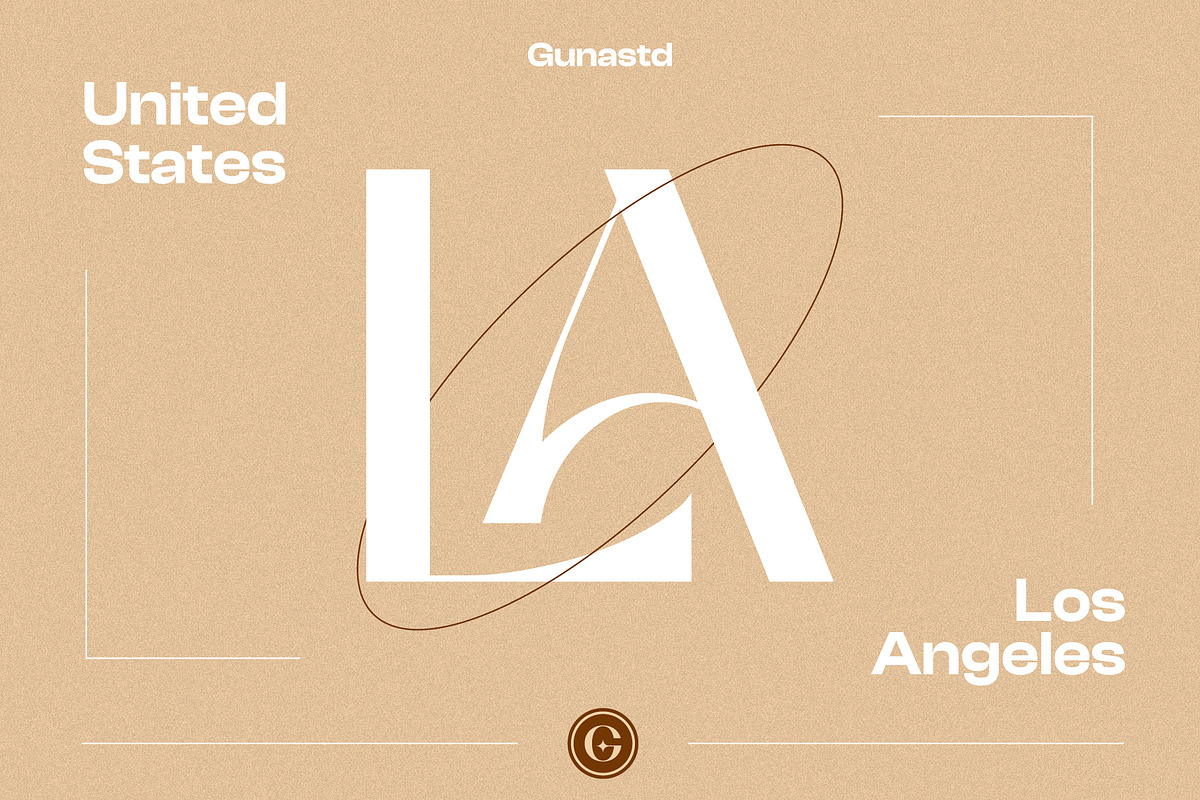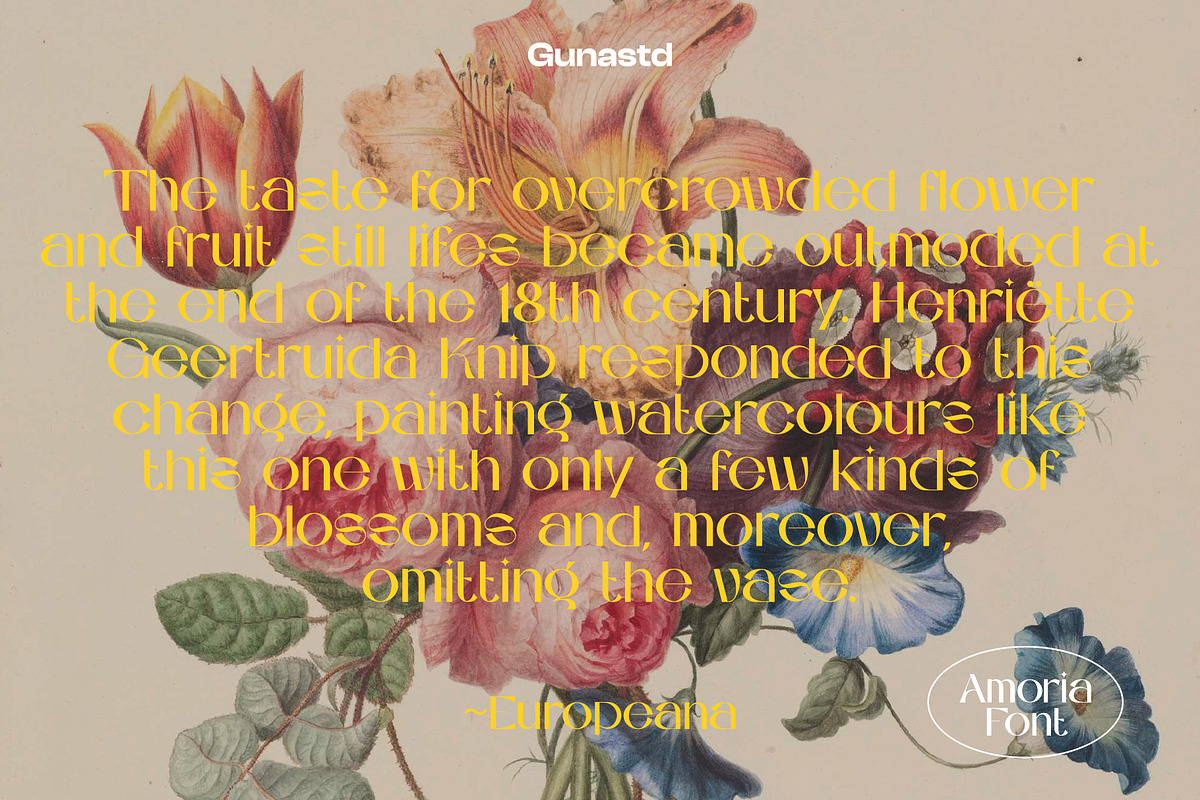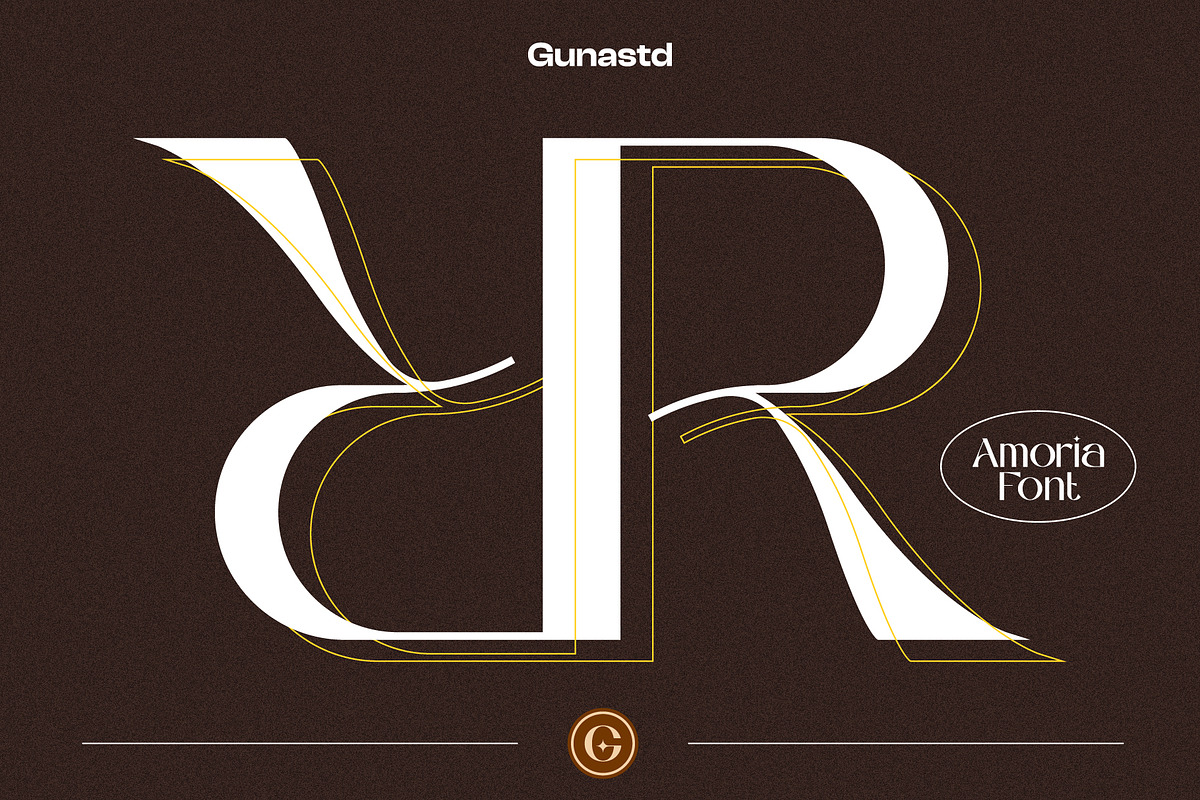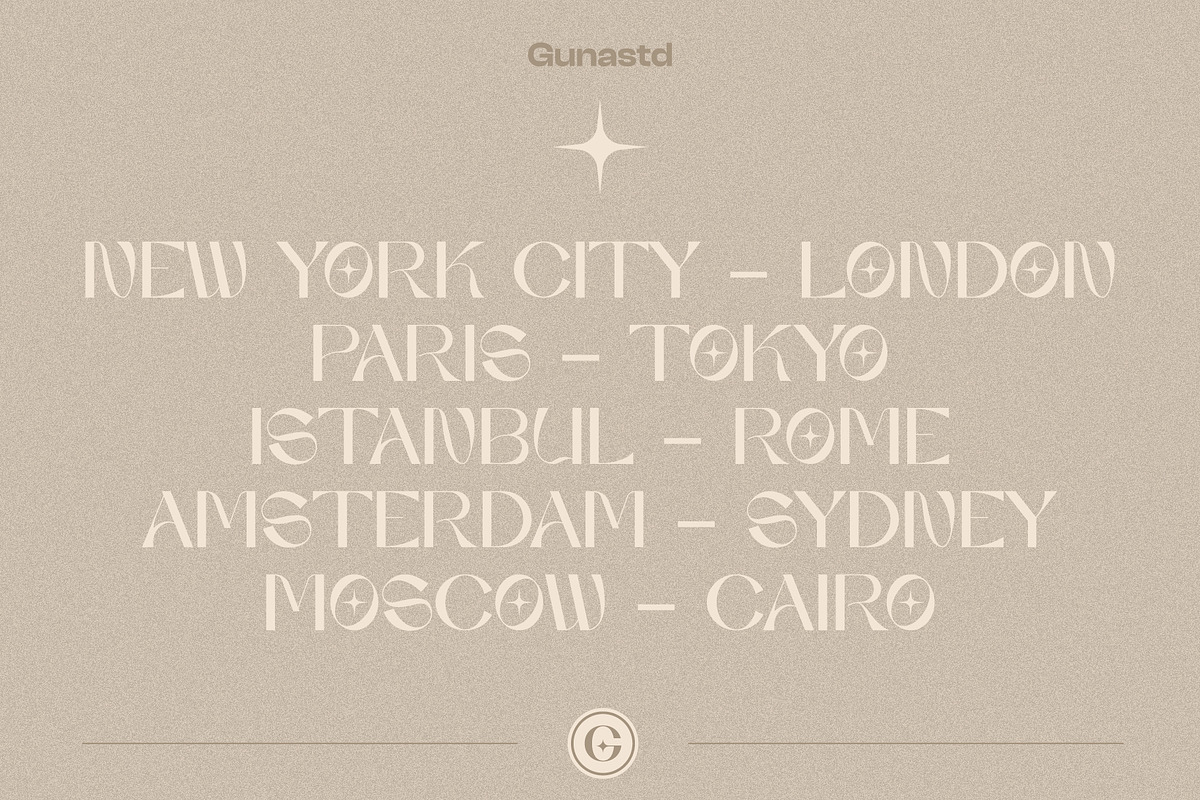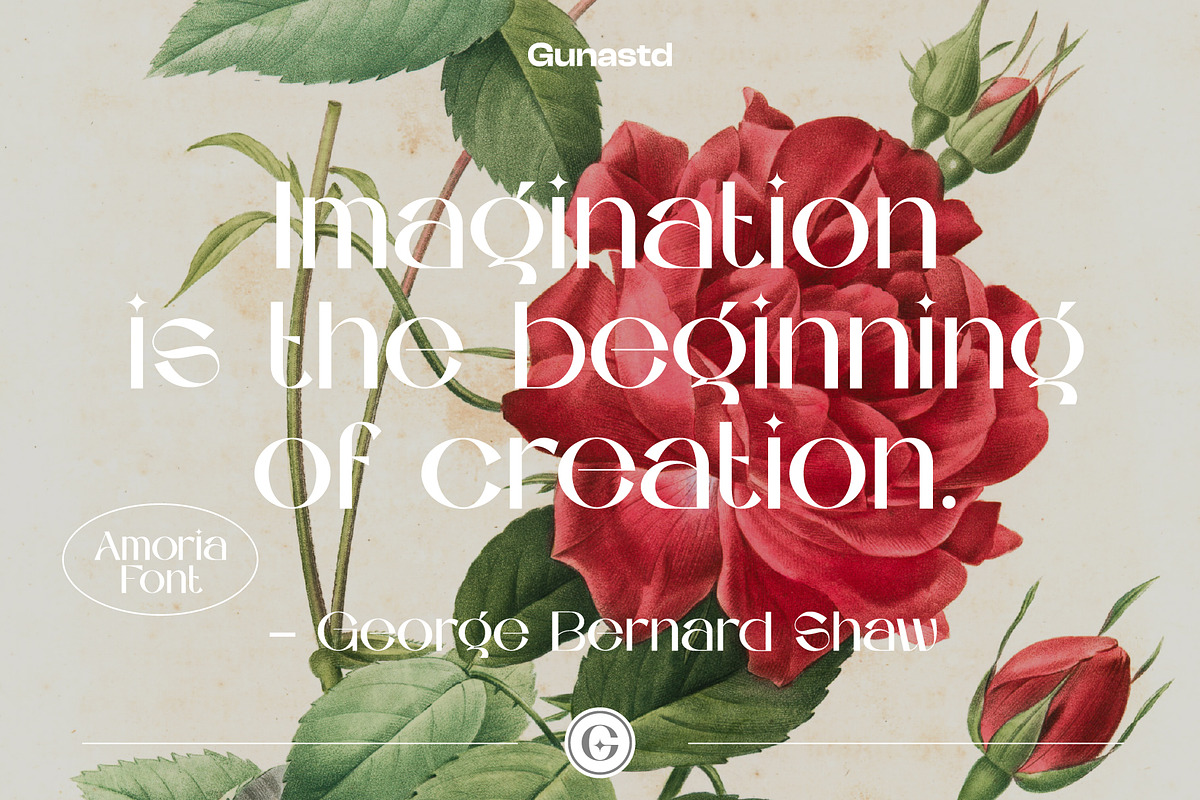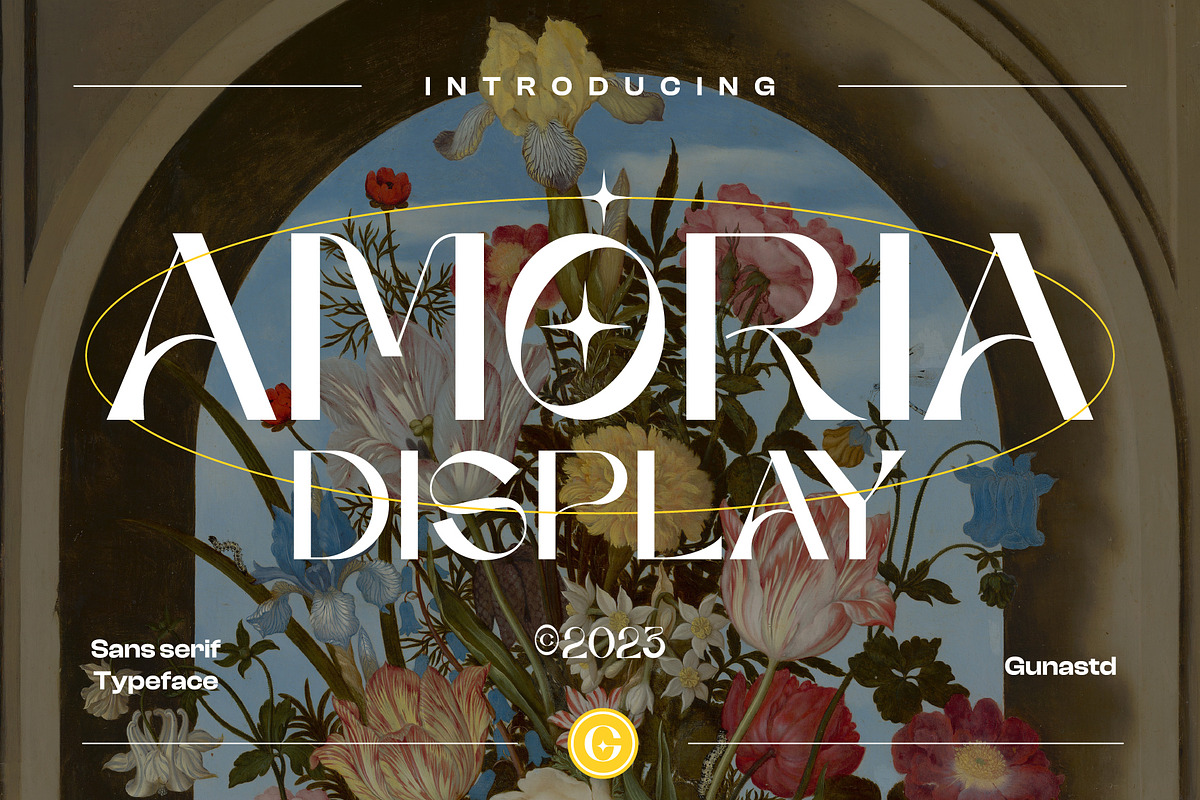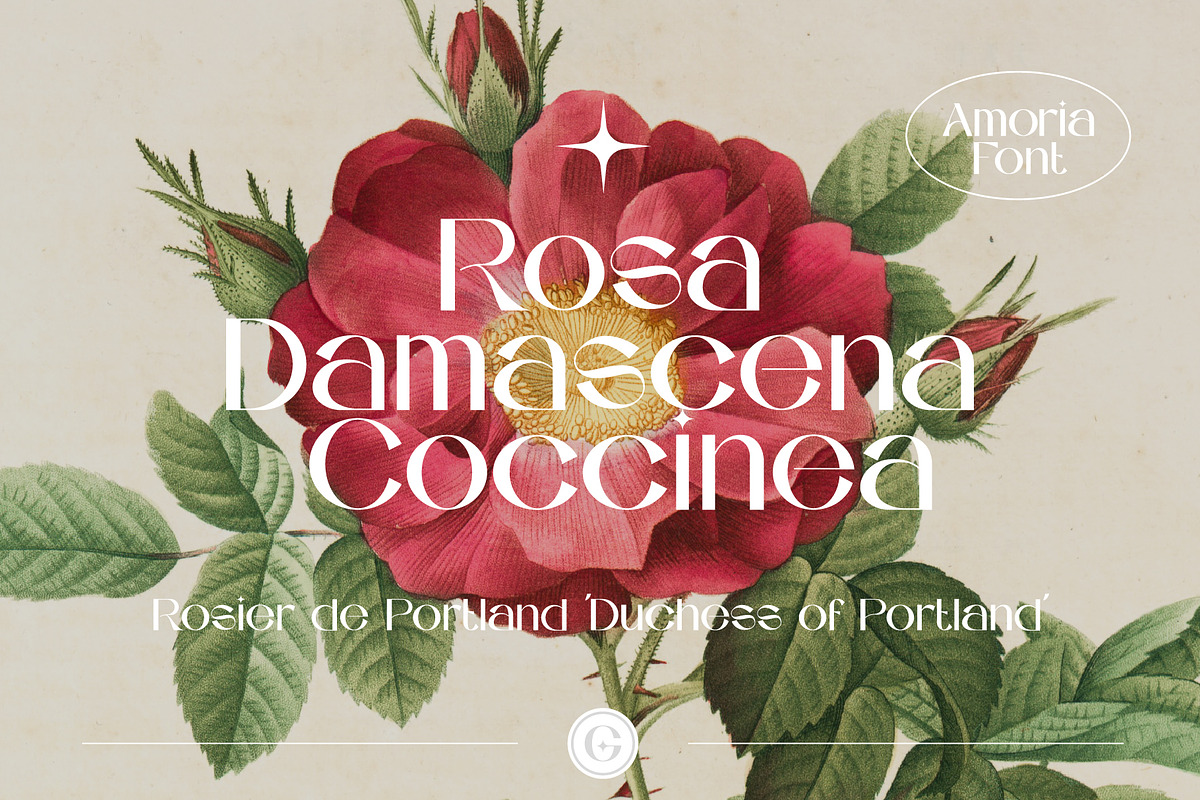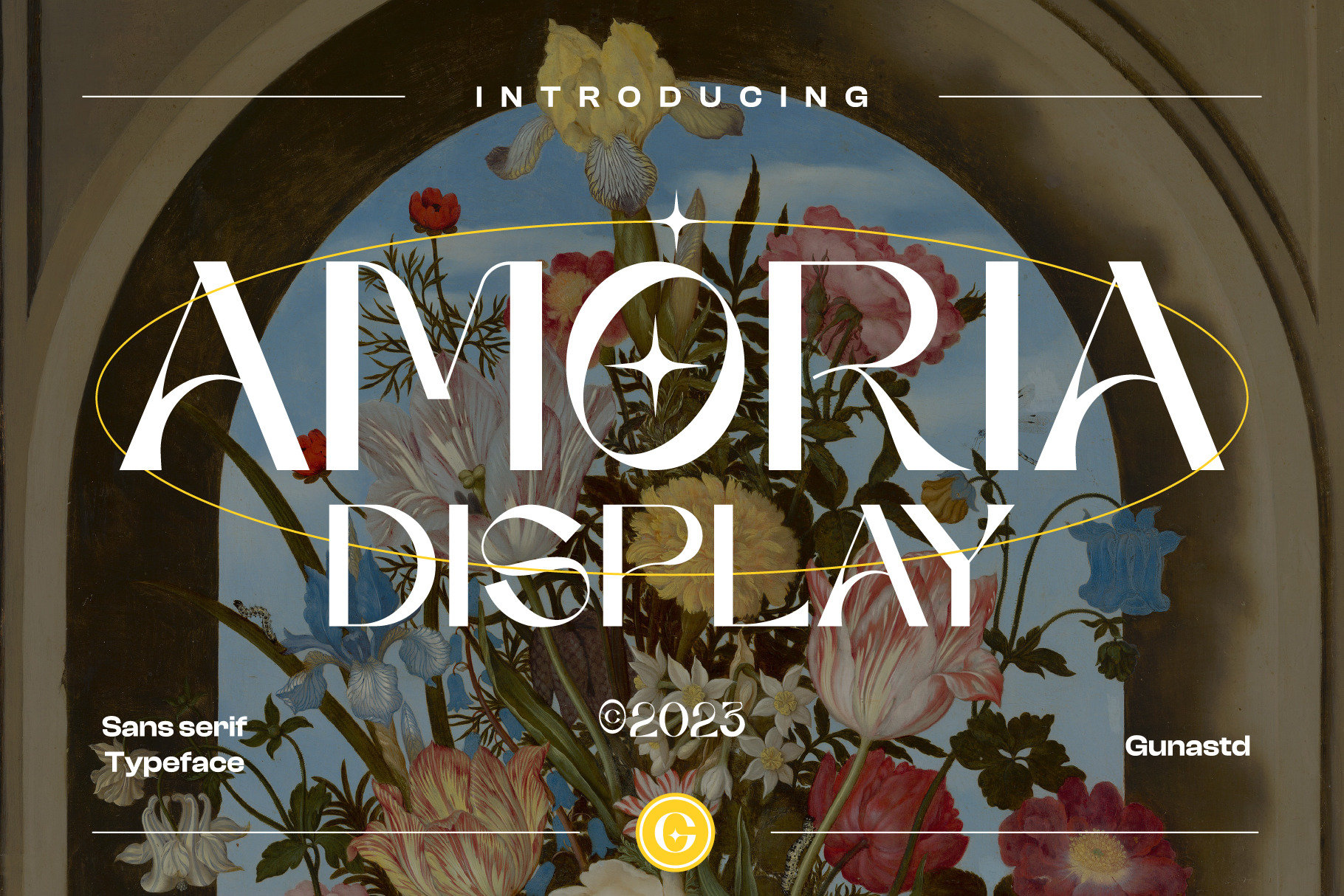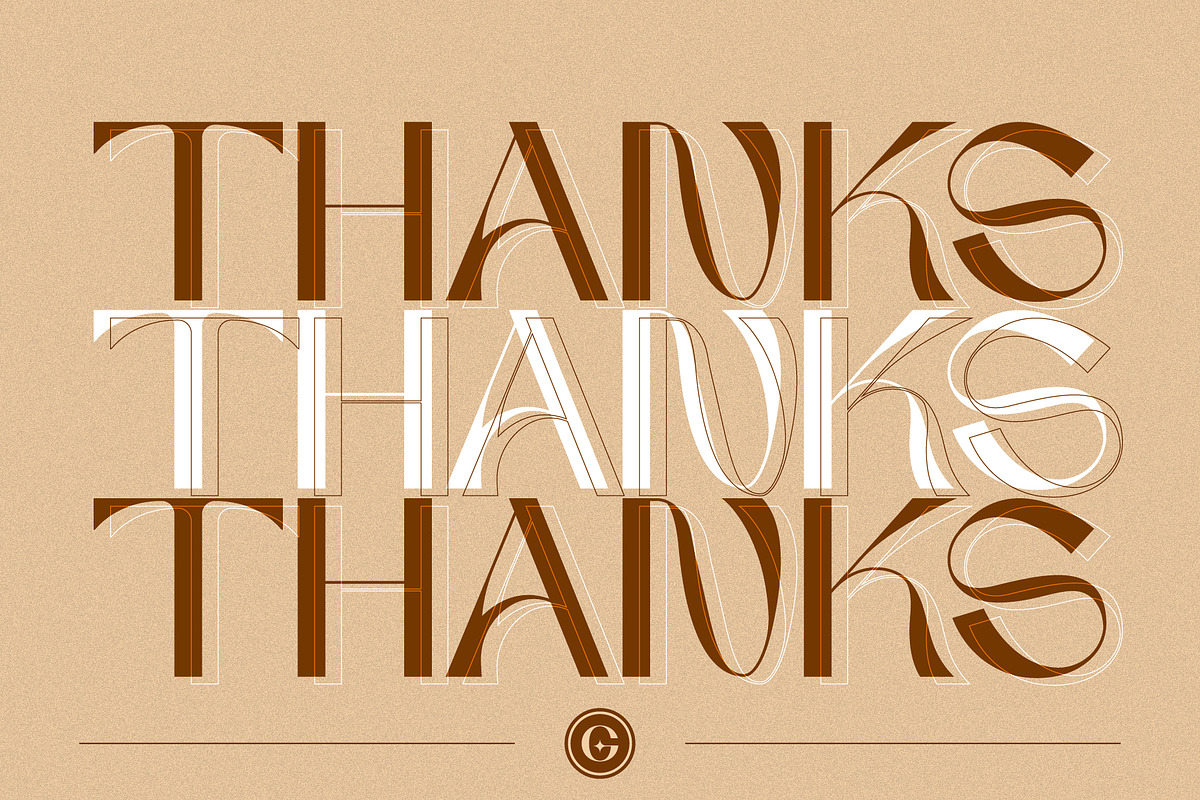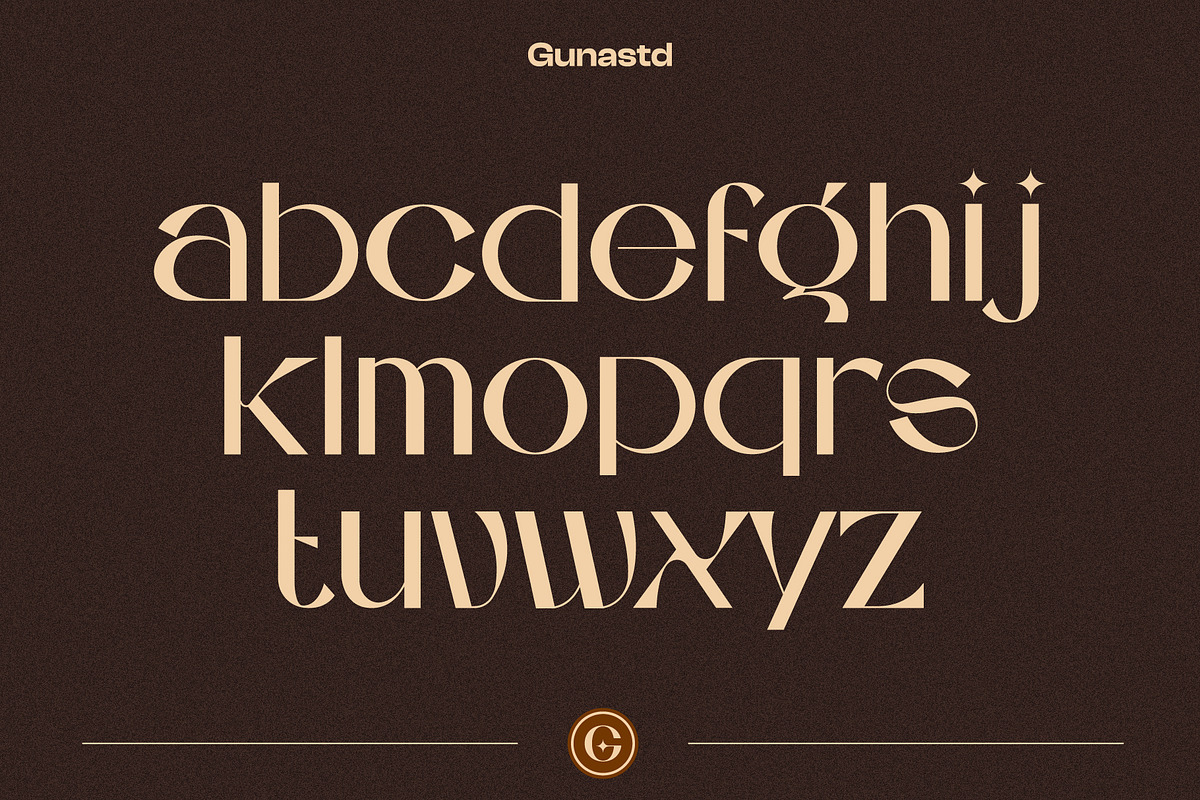
AMORIA Font Display Sans Serif
Proudly Introducing the New Font: AMORIA Font Display Sans Serif
AMORIA Font Display Sans Serif will be perfect for many different projects such as logos & branding, invitation, poster, flyer, wedding designs, social media posts, advertisements, product packaging, product designs, label, photography, watermark, special events or movie poster title just like what I did on the preview above.